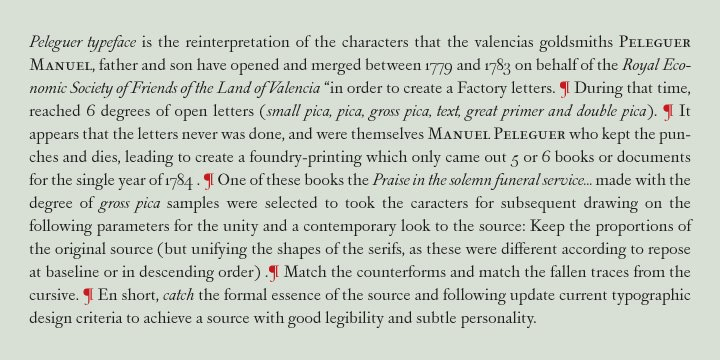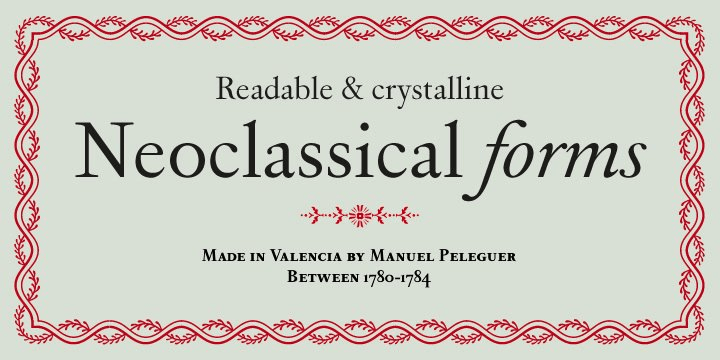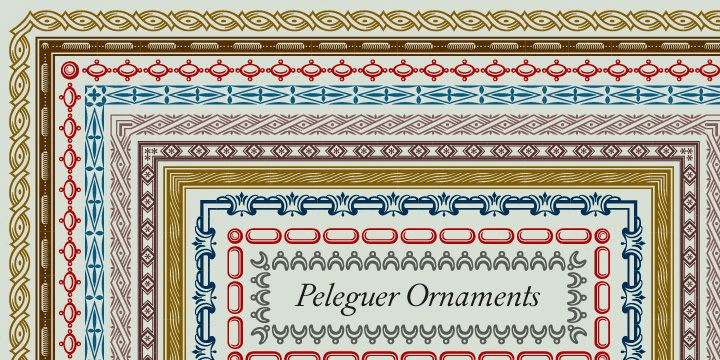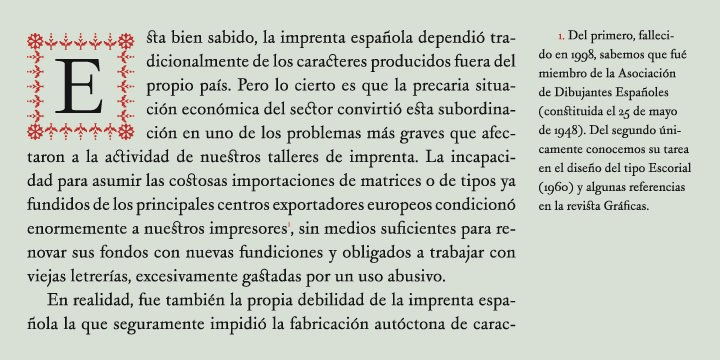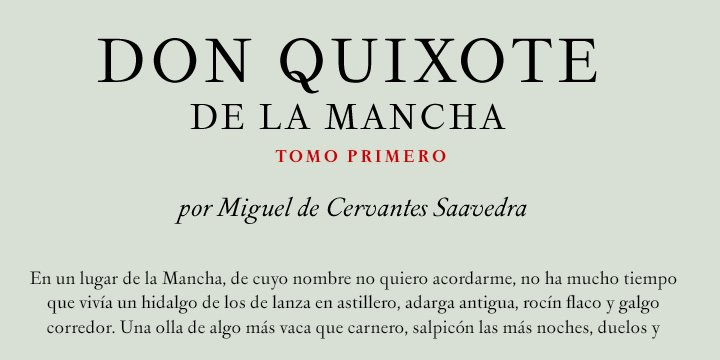
Peleguer
Font Family by Tipo Pèpel
Peleguer typeface is the reinterpretation of the characters that the valencias goldsmiths Peleguer Manuel, father and son had opened and merged between 1779 and 1783 on behalf of the Royal Economic Society of Friends of the Land of Valencia ?in order to create a Factory letters. Then during that time, reached 6 degrees of open letters (small pica, pica, gross pica, text, great primer and double pica).
It appears that the letters never were done, and were themselves Manuel Peleguer who kept the punches and dies, leading to create a foundry-printing which only came out 5 or 6 books or documents for the single year of 1784 . One of these books, ?Praise in the solemn funeral service ?? made ??with the degree of ?gross pica? samples were selected to take the characters for subsequent drawings on the following parameters for the unity and a contemporary look to the source: Keep the proportions of the original source (but unifying the shapes of the serifs, as these were different according to repose at baseline or in descending order). Match the counterforms and match the fallen traces from the cursive. En short, ?catch? the formal essence of the source and following update current typographic design criteria to achieve a source with good legibility and subtle personality.